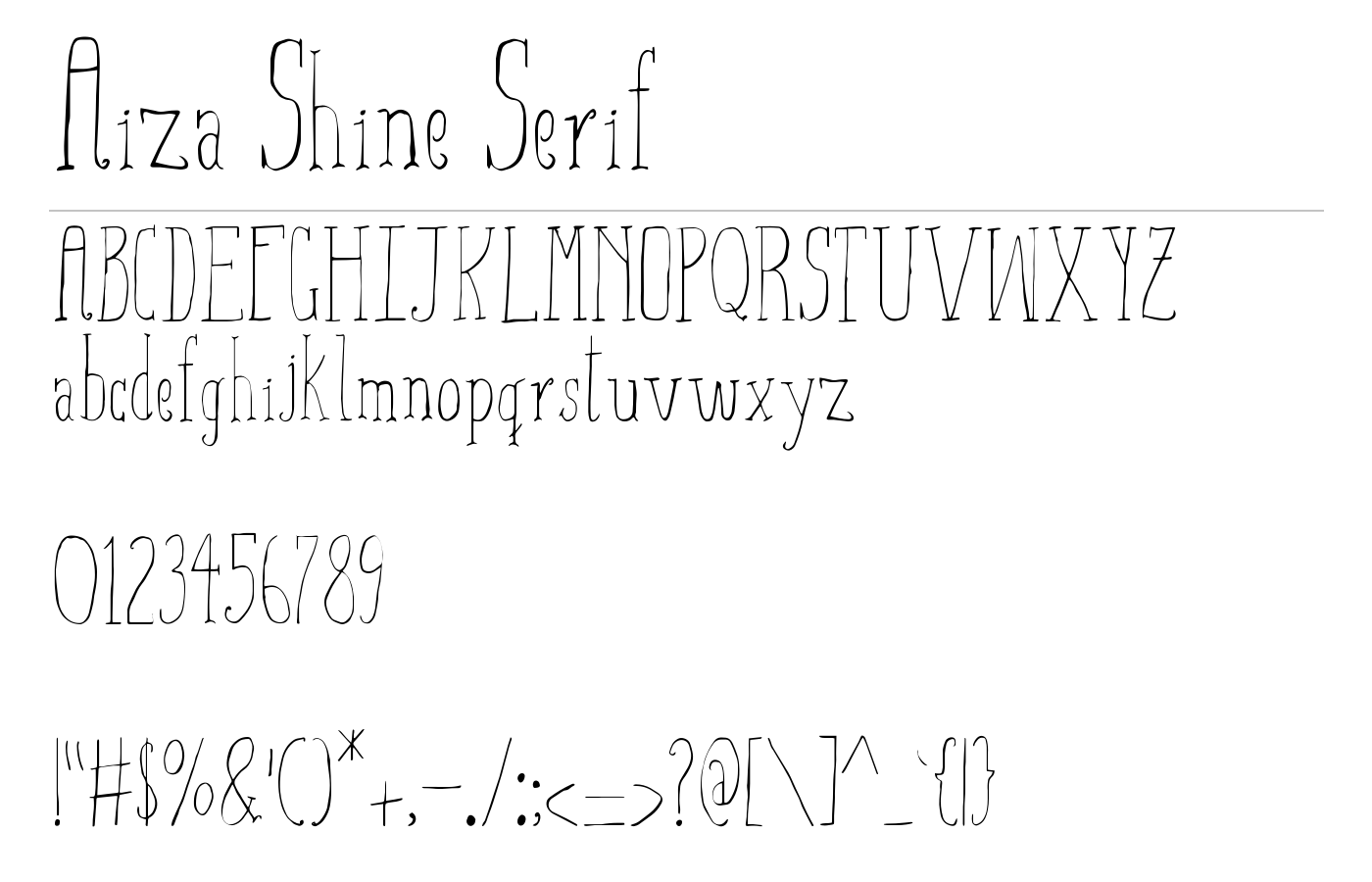
Aiza Shine Serif is a delicate, narrow serif font with a whimsical and slightly quirky character. Its thin, elongated letterforms and fine serifs create an elegant yet playful feel, making it ideal for creative projects, unique branding, and decorative headlines where a touch of artistic charm is desired. This font works best in designs that seek to stand out with a refined but unconventional style.
Aiza Shine Serif Font
About Aiza Shine Serif Font
| Font family | Aiza Shine Serif Font |
| Designer | Ahsan |